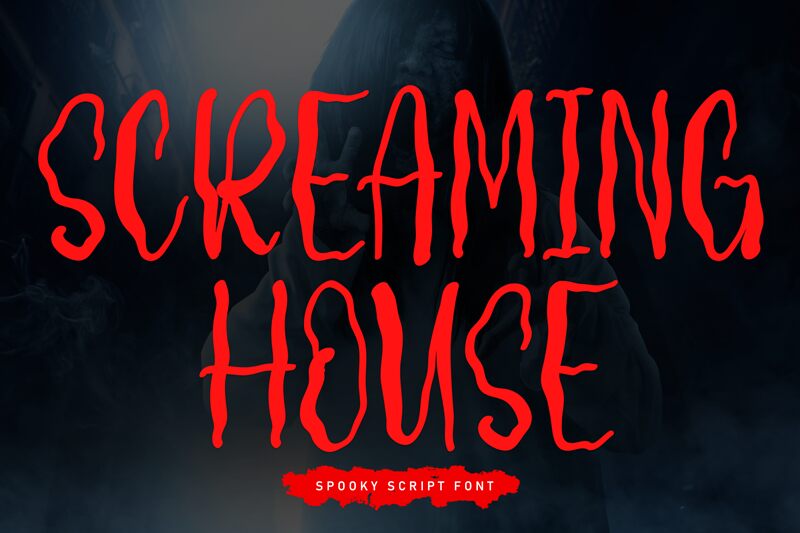
Screaming House font by Andi Moz captures the essence of a chilling ambiance with its irregular structure and eerie presence. This free font offers expressive characters with a gothic influence that enhances its unsettling and dramatic appearance. Ideal for those looking to incorporate horror-themed aesthetics, this typeface is sure to leave an impactful impression.
Get creative in various design projects with this font such as book covers, horror movie posters, Halloween invitation cards, or theatrical productions. Movie titles, video game covers, or dark and eerie event branding will also get a unique look with this typeface. Screaming House can also be suitable for projects related to gothic, punk, or metal music scenes.